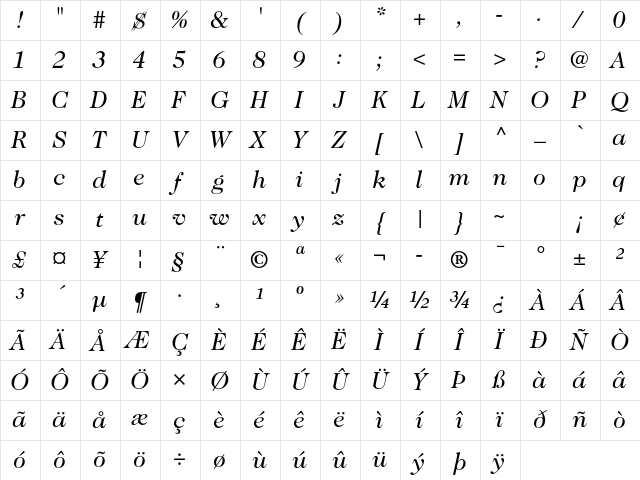
ITC Caslon 224 Std Book Italic
Style: Book Italic
Designer: Ed Benguiat
Design Context for ITC Caslon 224 Std
ITC Caslon 224 Std is a composed and adaptable typeface that performs quietly and consistently across a wide range of design contexts. The slanted form adds forward momentum and visual energy.
Pro Tip: Use ITC Caslon 224 Std for emphasis, pull quotes, and subheadings where its slanted energy can add rhythm to the layout.